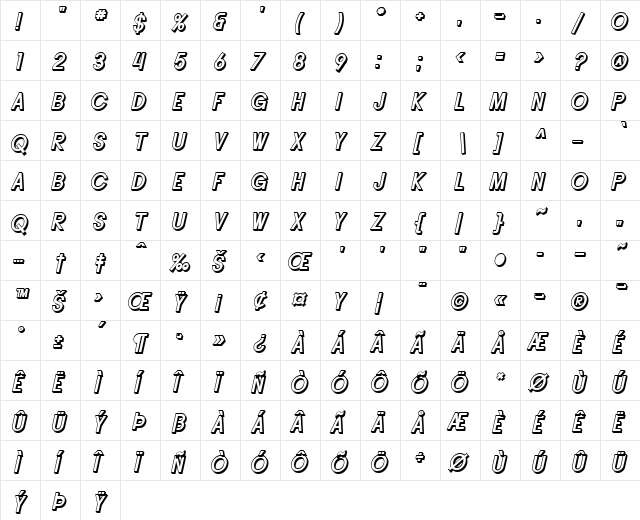
SF Buttacup Lettering Shaded Oblique
Design Context for SF Buttacup Lettering Shaded Typeface
SF Buttacup Lettering Shaded offers clean, dependable letterforms without strong stylistic allegiance, making it a practical choice for designers who need flexibility. The dynamic lean of this cut emphasises speed and emphasis in any layout.
Pro Tip: Try SF Buttacup Lettering Shaded for annotation and caption copy alongside an upright companion — the contrast in angle creates a dynamic but ordered typographic system.